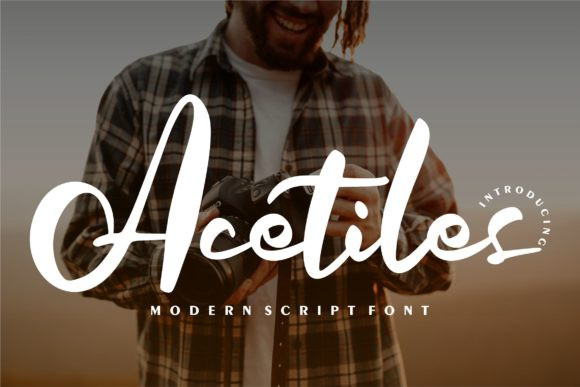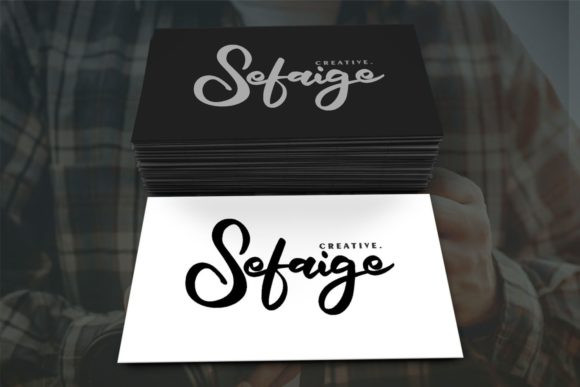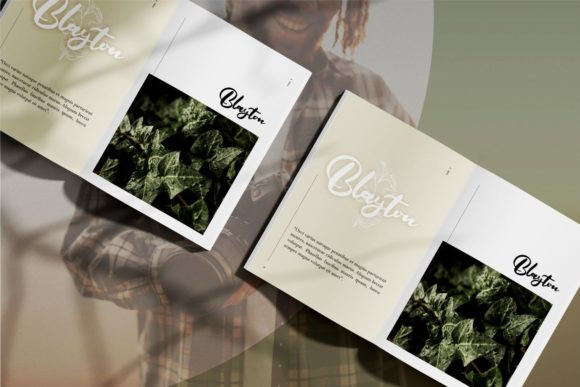
Acetiles Font
Acetiles is a unique and friendly handwritten font. Clean and a little bit quirky, this font is the perfect fit for all of your logos, branding, social media, and crafty DIY projects.